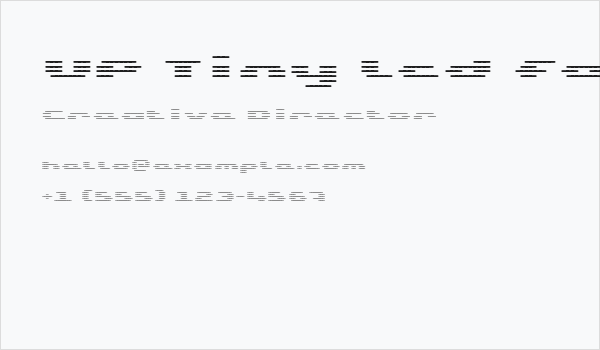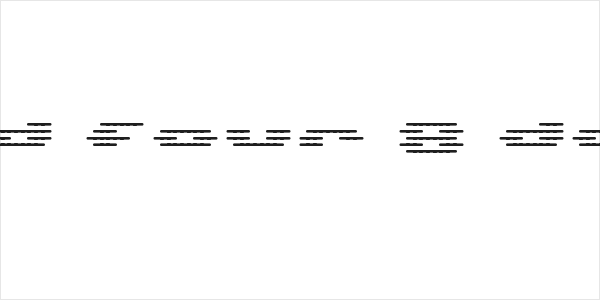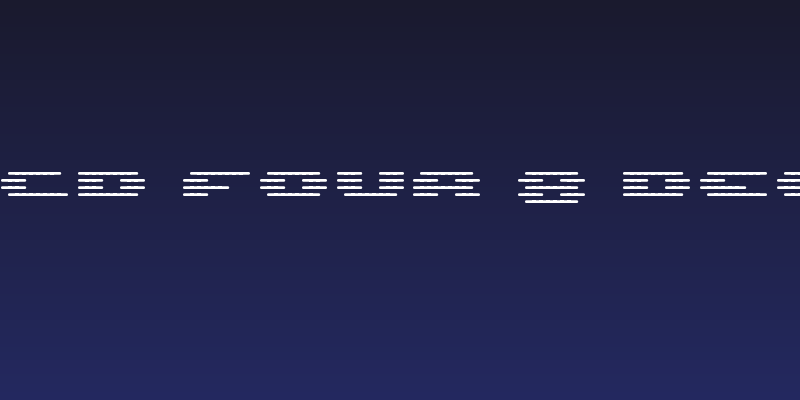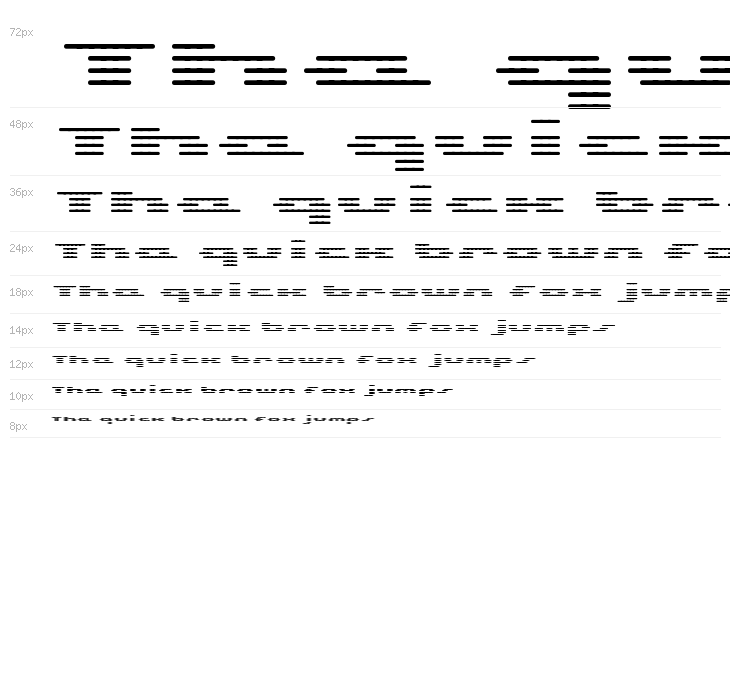
UP Tiny lcd four 8 decoH Light Font
UP Tiny lcd four 8 decoH Light Description
This font features a unique, digital-inspired design reminiscent of old LCD displays. Each character is constructed using a series of horizontal lines, creating a segmented appearance that mimics the look of digital clocks or calculators. The font maintains a consistent height across all characters, giving it a uniform and structured feel. Its geometric and minimalistic style makes it stand out, while the segmented lines add a touch of retro-futurism. The font is highly legible at larger sizes, making it ideal for display purposes where a digital or technical aesthetic is desired.
Overall StyleModern, Retro
Use CaseHeadlines, Logos, Digital displays
Proposed ProjectsIdeal for digital-themed projects, tech branding, retro-futuristic designs, and display settings.